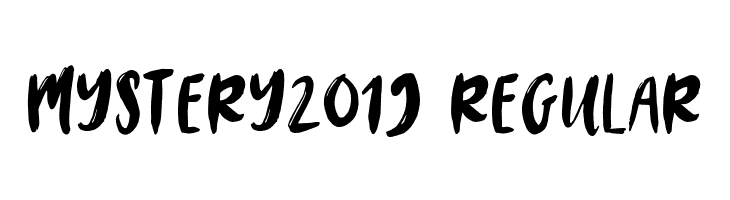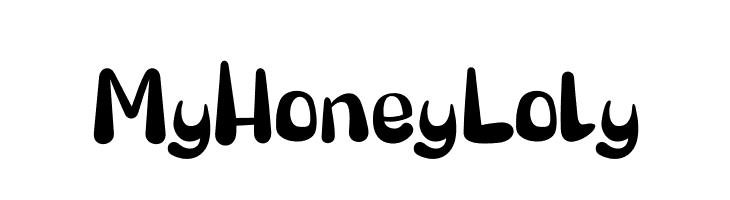
A mystical, 3D decorative font with angular, rune-like characters.
A mystical, angular font with a handwritten, magical script style.
A playful, childlike handwritten font with rounded, irregular strokes.
A bold, dripping font perfect for horror themes and Halloween designs.
A mystical icon set featuring fortune-telling and magical symbols.
A bold, brush-style font with a dynamic and artistic flair.
A playful, bold font with a hand-drawn, whimsical style.
A playful, bold font with rounded edges and a whimsical style.
A bold, playful handwritten font with rounded strokes and a whimsical style.
A dynamic and elegant script font with flowing, cursive letterforms.